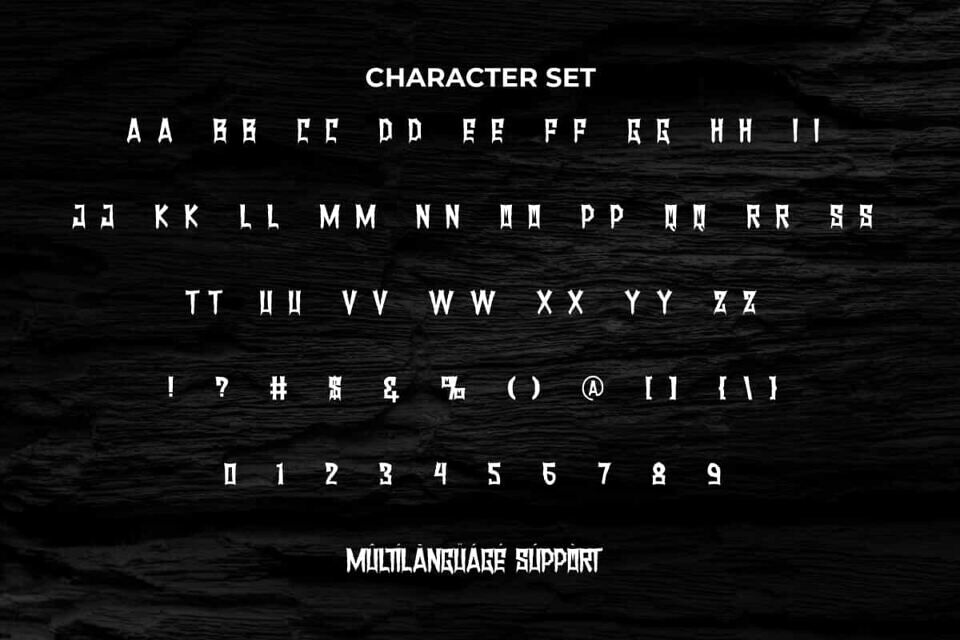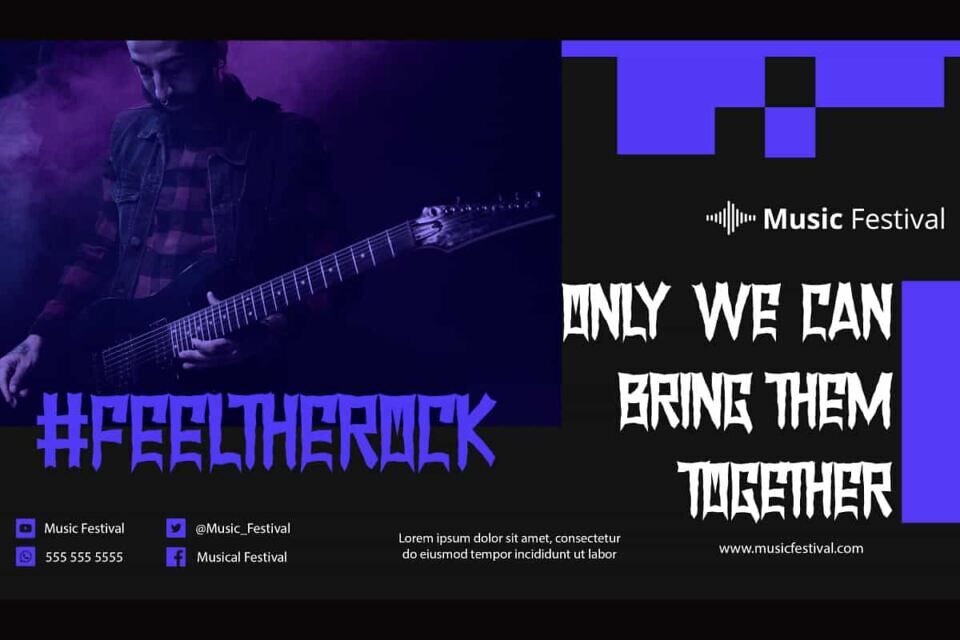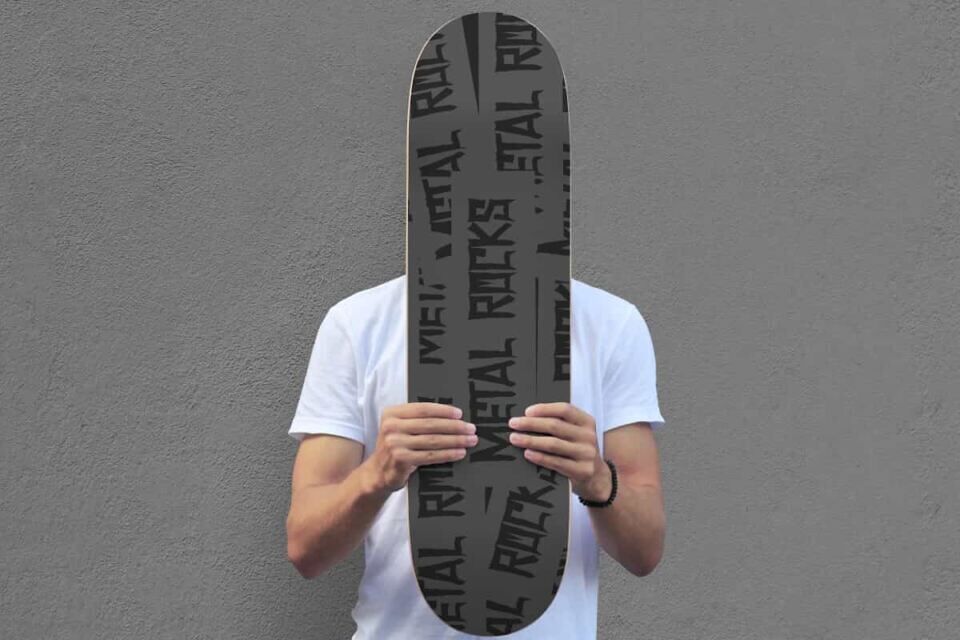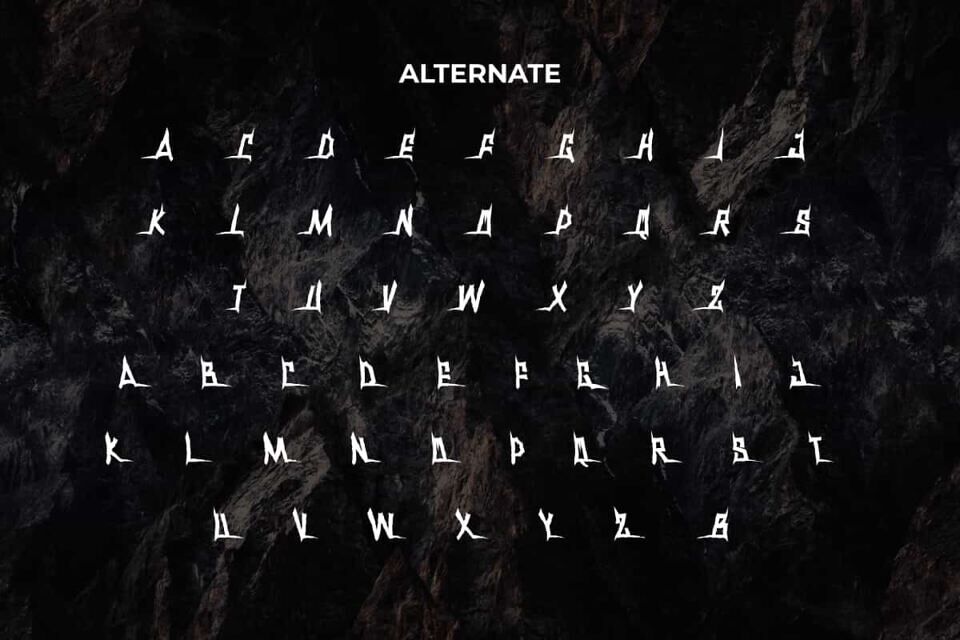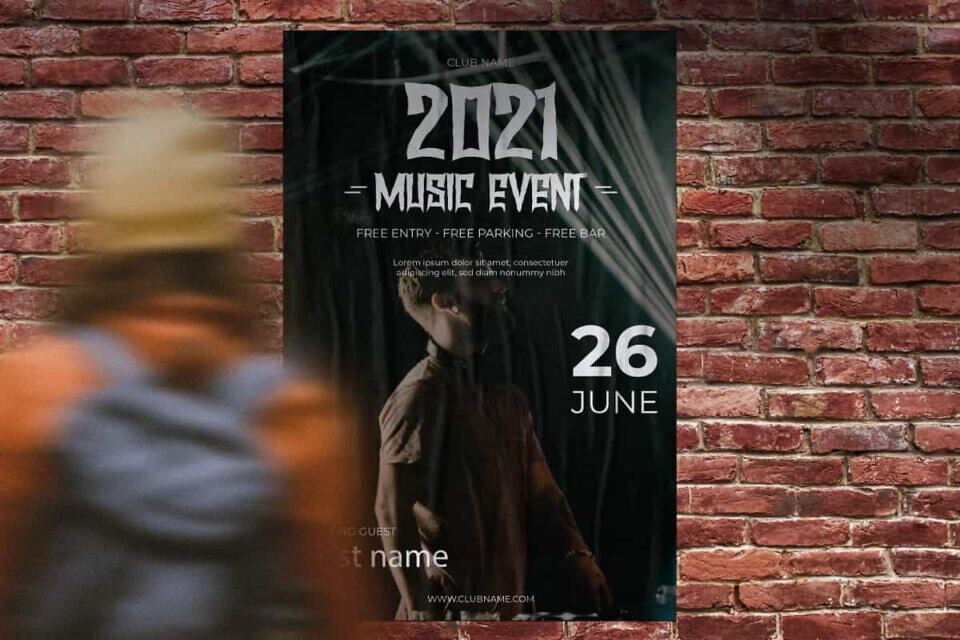
Metal Rocks Font
Metal Rocks Font is a distinctive black metal typeface, ideal for applications requiring a bold and striking aesthetic. The style of this font is identical to the logos commonly used by cool metal band. It will be perfect for any designs, such as custom design, brand image, label, invitation, cover, marketing material, menu, poster, printing, product packaging, quotes, signage, website, and many more!
Metal Rocks Font includes full set of ALL CAPS for Uppercase and Lowercase Basic Characters, Numerals, Punctuation, and Symbol. This font also contain Alternate character that will make your design amazing and also a perfect choice for many industries, such as game, movie, music, accessories, advertising, art, café, event or festival, fashion, printing, publishing, etc.